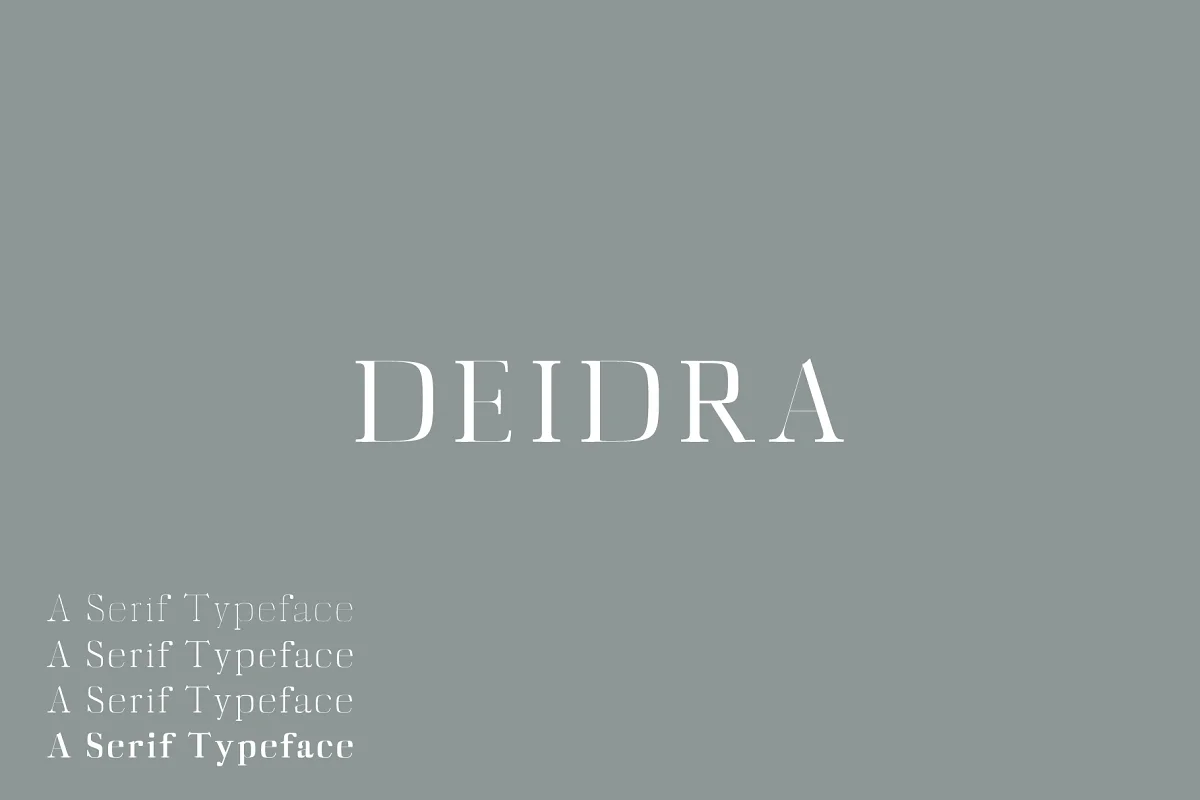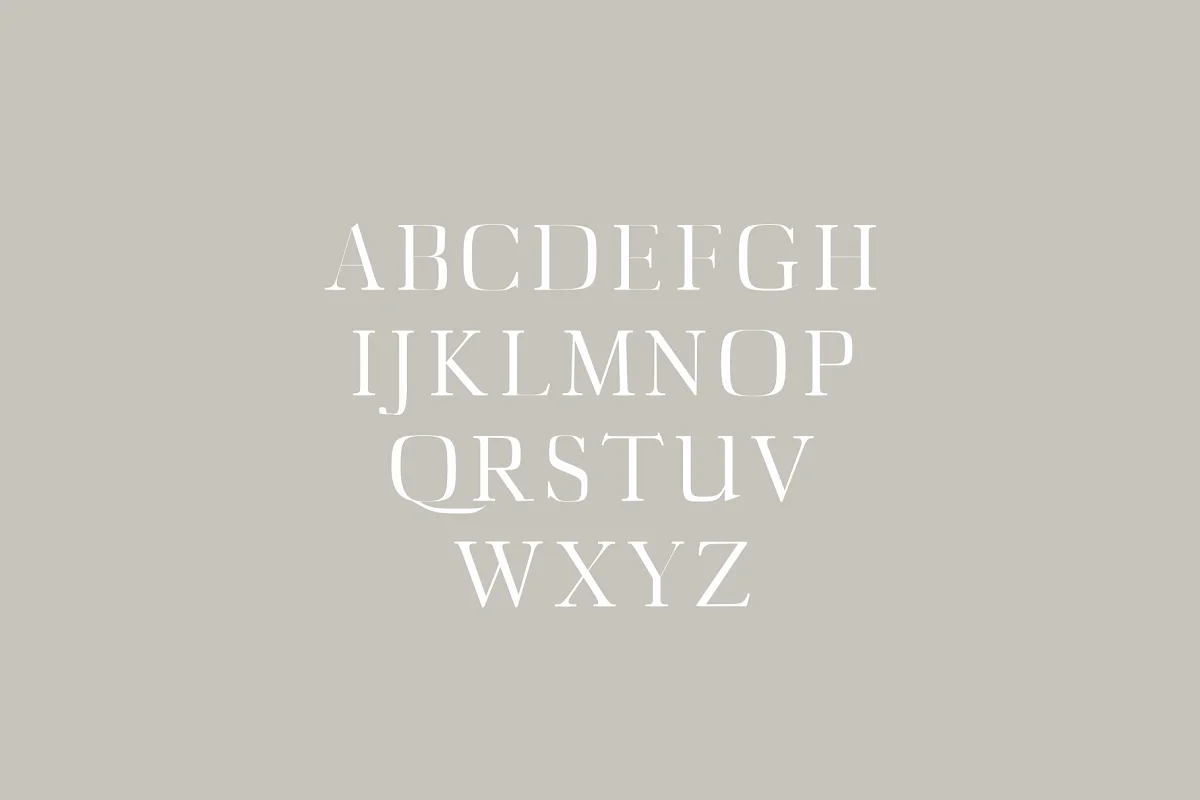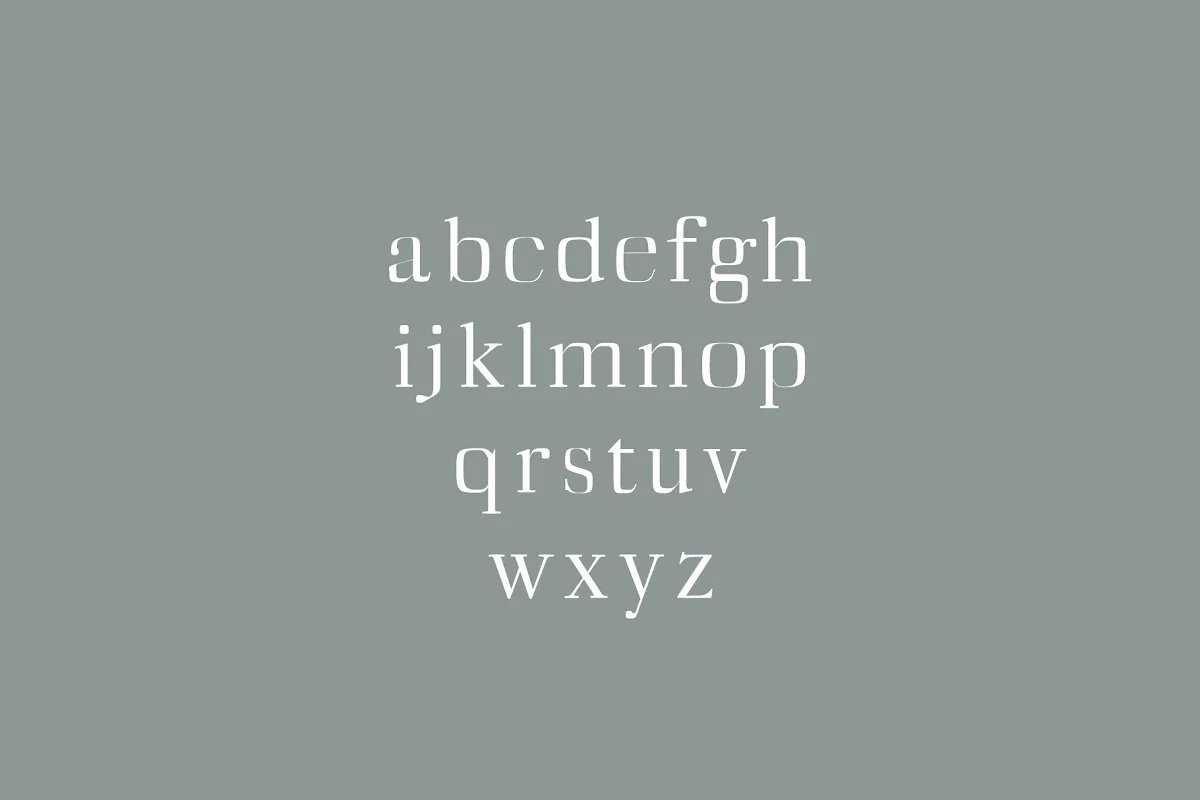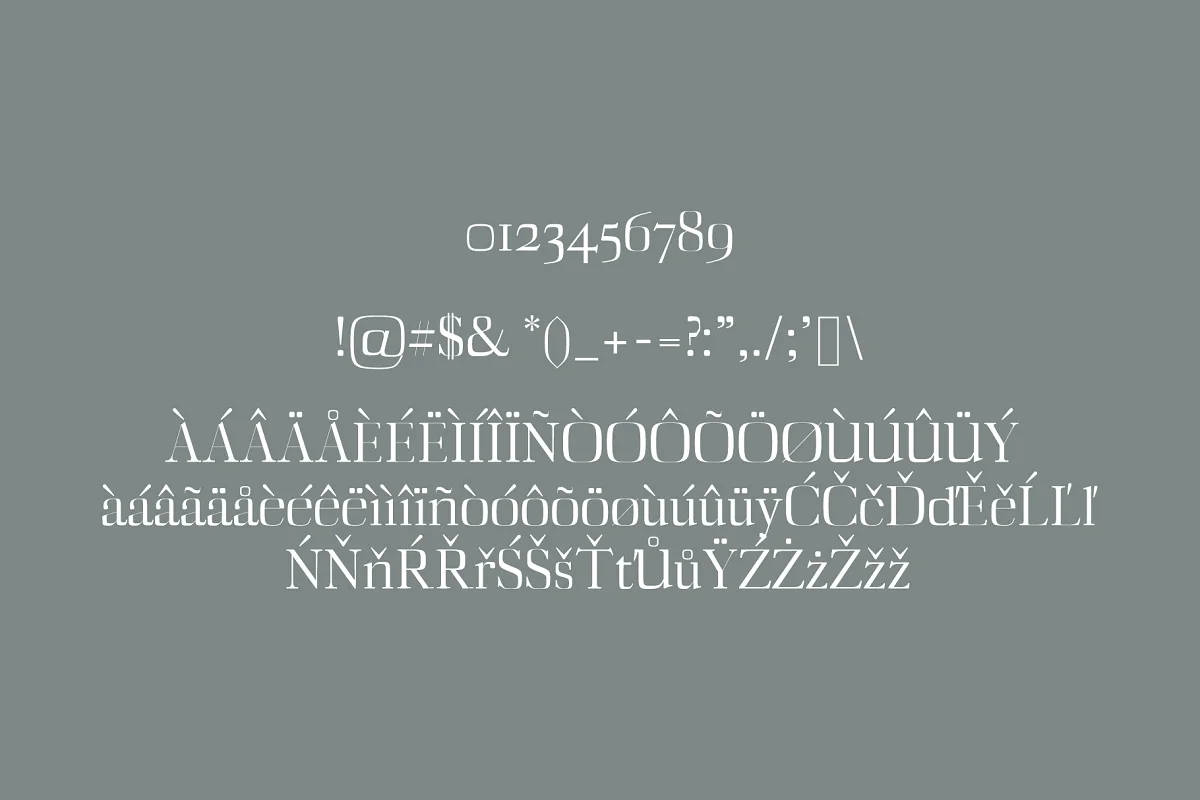
About the Deidra Serif Font
Deidra is a minimal clean serif font family, which contains 4 weights and It features a unique and modern serif look and feels. Perfect for gorgeous logos, titles, web layouts, and branding.
It looks gorgeous in all caps with a wide-set spacing if you want to try a classy look, or beautiful on its own in capital and lowercase letters for something completely timeless.
- Font Weight: Regular, Thin, Light, and Bold
Deidra Font Features:
- Uppercase Multilingual Letters
- Lowercase Multilingual Letters
- Numbers & Punctuation
- Non-English Characters ( Latin Supplement + Latin Extended-A)